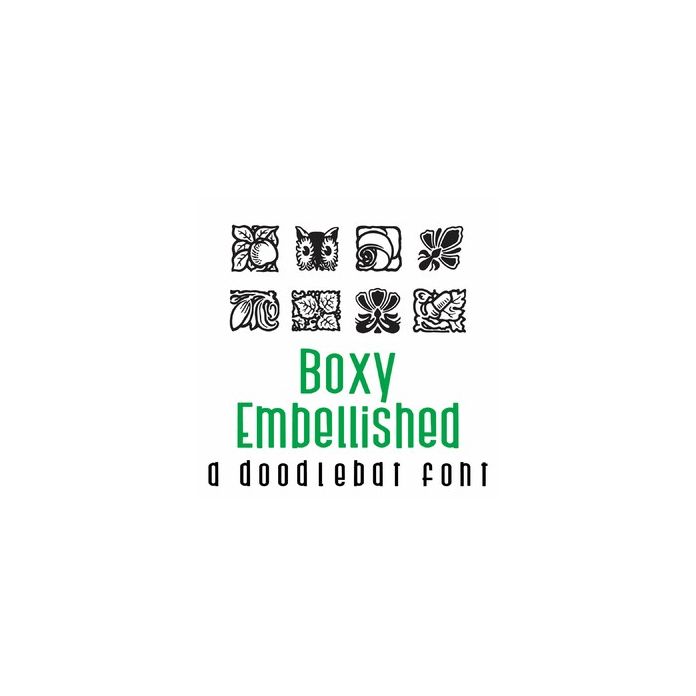
Boxy Embellished Doodlebat Font
This fun doodlebat font features 26 boxy embellished icons. Perfect for cards, gifts, decor, crafts, scrap book pages, planner stickers and more!